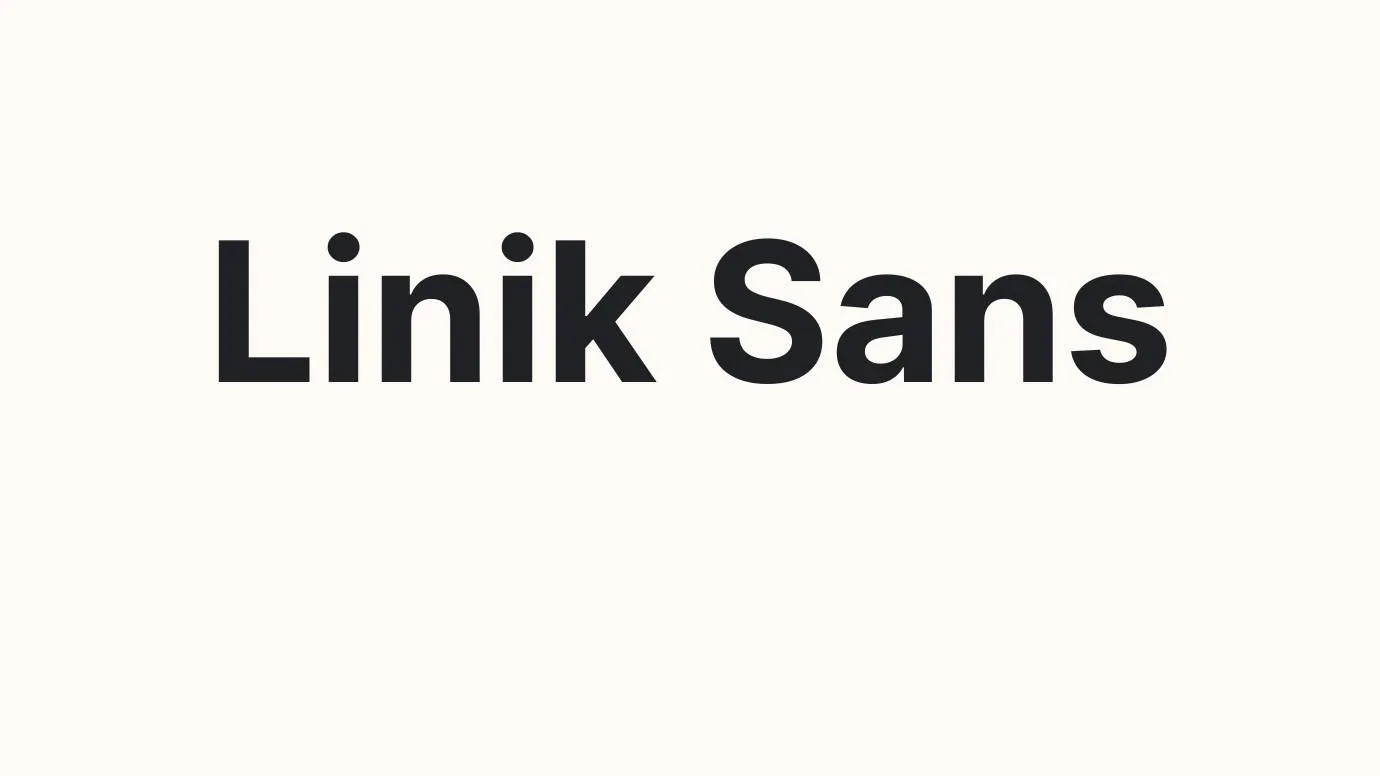
Linik Font Family is a very neat and clean typeface with different types styles and weights. This high-readability font was designed by Rasmus Andersson. This versatile font supports file formats True Type Font and Open Type Font.
This font gives an eye-catching look when you pair it with other fonts like modular font. It is also good for personal and commercial projects by using this font.
Linik Font Family